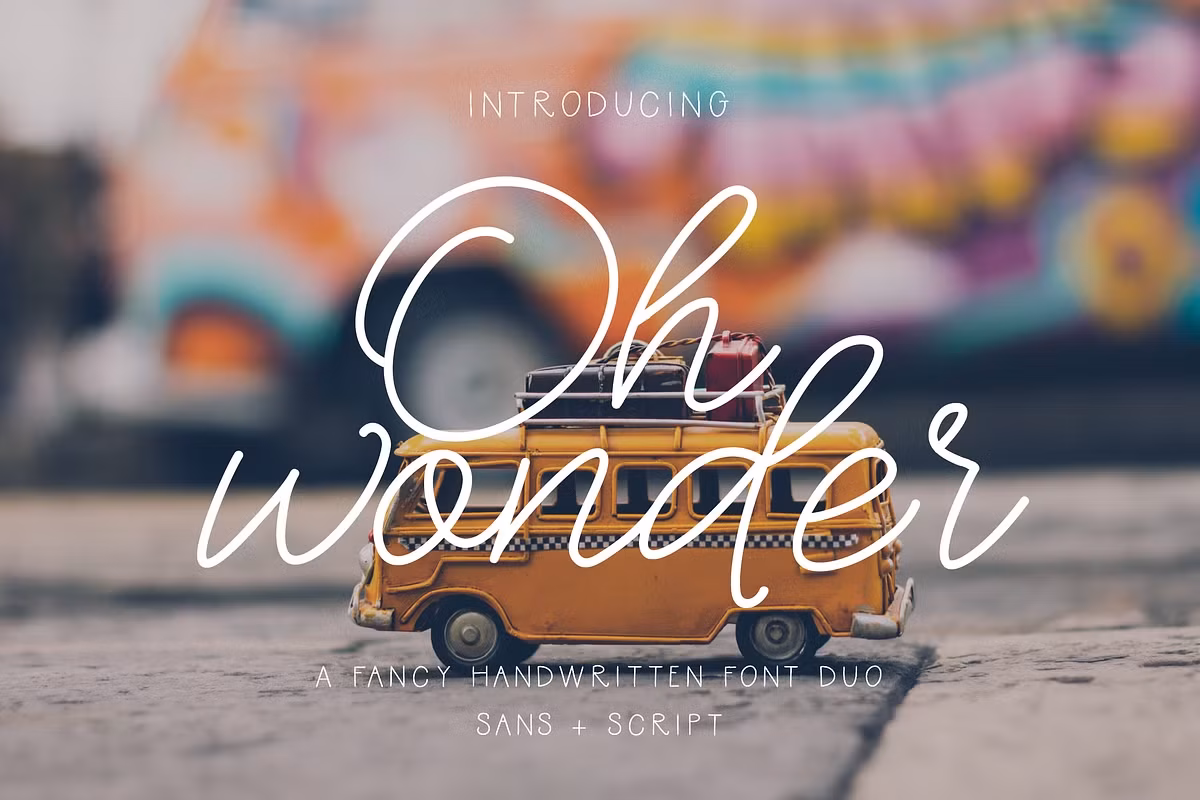
Oh Wonder Font + Bonus Font & Logos Free Download
Oh Wonder Font + Bonus Font & Logos Free Download is a comprehensive font package designed to elevate your creative projects. This collection includes a stylish and elegant font along with bonus fonts and pre-designed logos, perfect for branding, logos, invitations, posters, and more. The unique design of Oh Wonder brings sophistication and flair to your designs, while the included logos provide a great starting point for your projects.